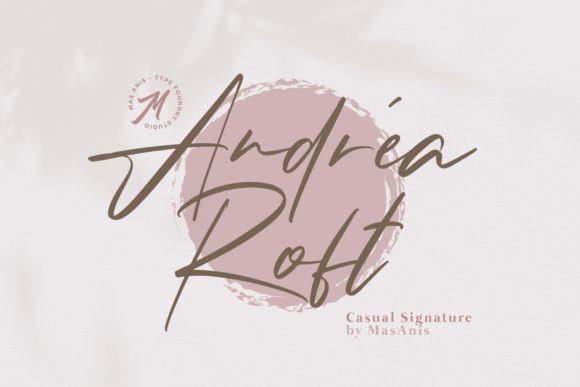
Andrea Roft Font
Font Name : Andrea Roft Font
Author : Mas Anis
Prepare yourself to be mesmerized by the spellbinding Andrea Roft Font, a captivating and free-spirited handwritten masterpiece crafted with meticulous care by the renowned Mas Anis.
Step into a world where creativity dances with individuality. Andrea Roft's captivating letters will ignite your imagination, inviting you to express yourself with flair and passion. Every stroke, every curve embodies a captivating playfulness that will leave an unforgettable impression on your audience.
Whether you're crafting enchanting invitations, designing captivating posters, or personalizing your digital creations, Andrea Roft Font will effortlessly elevate your projects to new heights of elegance and charm. Its bold and distinctive character will make your words dance off the page, leaving a lasting impact that will enchant and captivate.
Dive into the depths of Andrea Roft's irresistible allure. Let its organic flow and enchanting contours transport you to a realm of boundless possibilities. Unleash your inner artist and let the magic of Andrea Roft Font guide your creative vision.